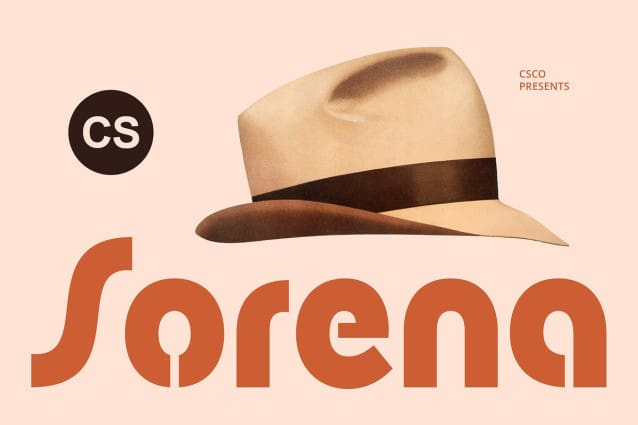
CS Sorena Font
CS Sorena Font is a bold display sans-serif font that embodies the charm of retro-funky style. Designed with strong letterforms, slightly curved edges, and a confident presence, this typeface brings a powerful yet playful personality to any design. Inspired by vintage typography, CS Sorena captures the essence of the past while delivering a modern twist, making it a versatile choice for various creative projects.
Bold and Expressive with a Playful Twist Featuring sturdy yet lively letterforms, CS Sorena injects fun and vibrancy into designs. Its thick structure and well-balanced proportions create a dynamic flow that enhances legibility while maintaining a unique retro appeal. The funky aesthetic adds a sense of movement and rhythm, making it perfect for compositions that demand attention and creativity. Whether used for eye-catching headlines, expressive logotypes, or nostalgic branding, this font delivers a distinctive and unforgettable visual impact.
Perfect for Modern Retro Designs CS Sorena’s striking appearance makes it ideal for branding, posters, packaging, and editorial layouts that embrace a vintage-meets-modern aesthetic. Its retro-funky personality is well-suited for projects related to fashion, music, entertainment, and lifestyle brands that seek to evoke nostalgia with a contemporary edge. From bold advertising campaigns to stylish product labels, CS Sorena’s versatility allows it to shine across a range of applications.